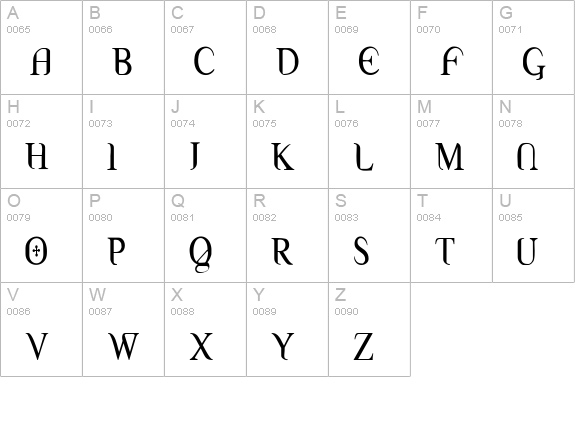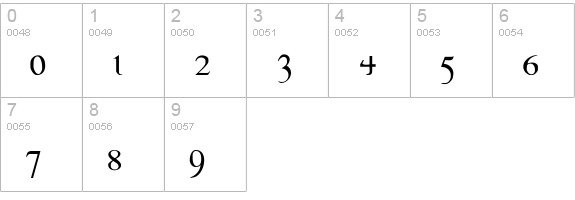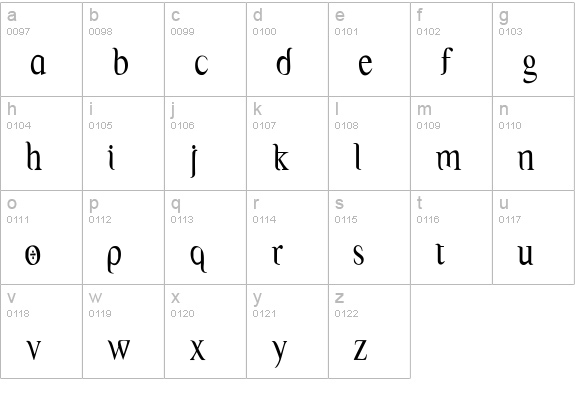
Thessaly Font Details
Introducing Thessaly, a captivating and versatile font that will bring a touch of elegance to any design project. With its sleek and modern aesthetic, Thessaly is perfect for branding, logo design, editorial work, and so much more. Crafted with precision and attention to detail, this font embodies a harmonious balance between sophistication and playfulness. Thessaly's smooth and flowing letterforms exude a timeless charm, making it suitable for a wide range of applications. Whether you're designing a wedding invitation, creating a stunning website, or crafting eye-catching social media posts, Thessaly will effortlessly elevate your work to new heights. One of the most remarkable aspects of Thessaly is that it is available as a free download at FontsMarket.com. This means that you can enjoy the beauty and versatility of this font without any cost. Simply head over to FontsMarket.com and start exploring the endless possibilities that Thessaly has to offer. The extensive character set of Thessaly includes uppercase and lowercase letters, numerals, punctuation marks, and special characters, ensuring that you have all the tools you need to create truly unique and impactful designs. Its compatibility with various design software further enhances its flexibility, allowing you to seamlessly integrate Thessaly into your creative workflow. Whether you're a professional designer or a passionate hobbyist, Thessaly is a font that you simply cannot afford to miss. Its free availability at FontsMarket.com makes it even more accessible and desirable. Download Thessaly today and unlock a world of design possibilities that will leave a lasting impression on your audience.